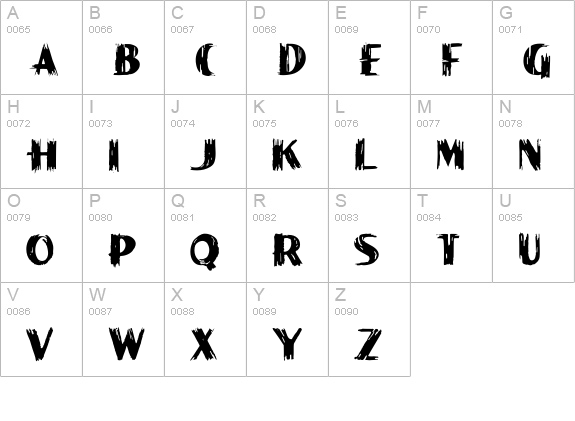
Introducing the mesmerizing Paint Peel Initials font, a stunning typeface that will bring a unique touch to your designs. This font showcases an elegant blend of vintage charm and modern sophistication, making it the perfect choice for those seeking a distinct and artistic look. The Paint Peel Initials font features beautifully handcrafted letterforms that appear as if they have been meticulously painted onto a canvas. Each character embodies a sense of texture and depth, as if the paint is gracefully peeling away, revealing layers of artistry underneath. This font is ideal for a wide range of creative projects. Whether you're designing branding materials, wedding invitations, book covers, or simply adding a touch of elegance to your social media posts, the Paint Peel Initials font will effortlessly elevate your designs to new heights. The best part? This remarkable typeface is available for free download exclusively at FontsMarket.com. Say goodbye to expensive fonts and hello to unlimited creativity without breaking the bank. With Paint Peel Initials, you can freely unleash your imagination and add a touch of artistic flair to your projects. Don't miss out on this incredible opportunity to enhance your designs with the captivating Paint Peel Initials font. Download it now, and let your creativity run wild.